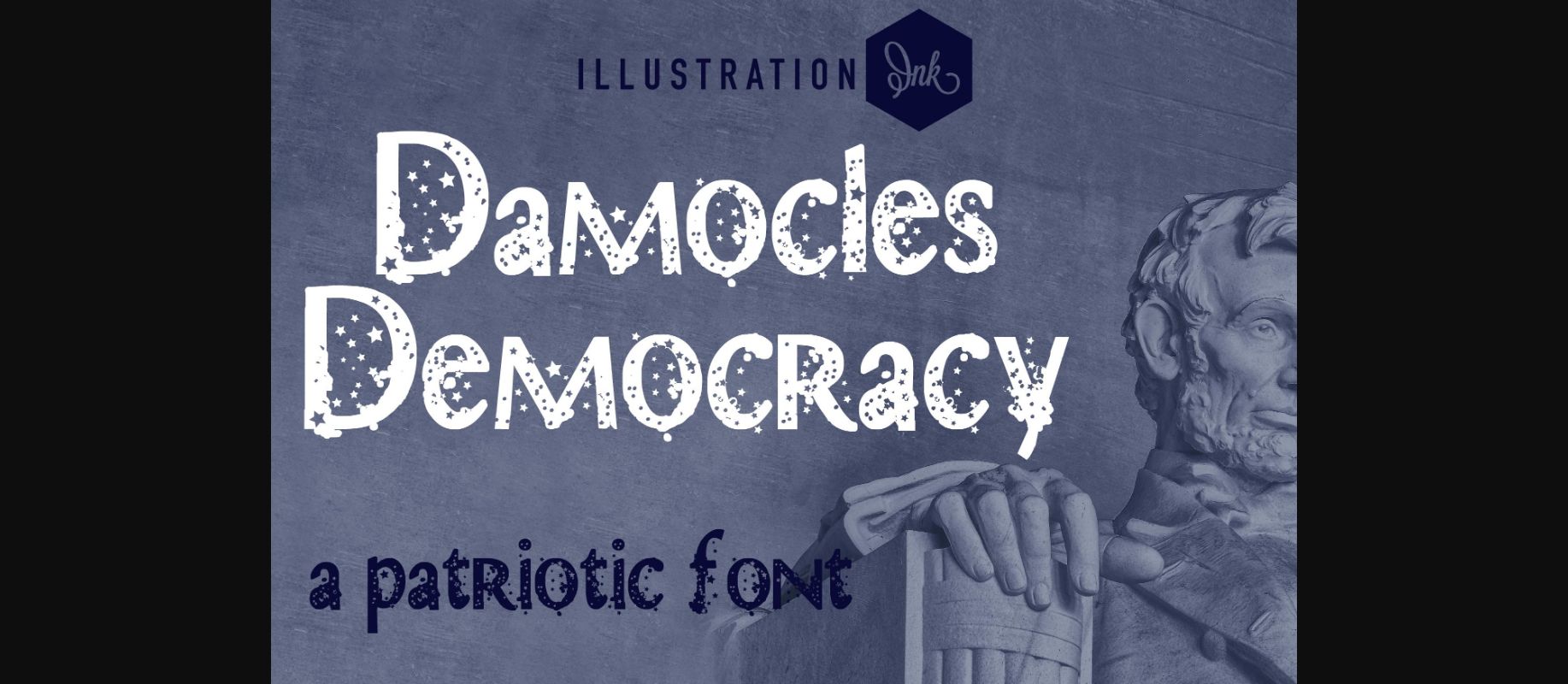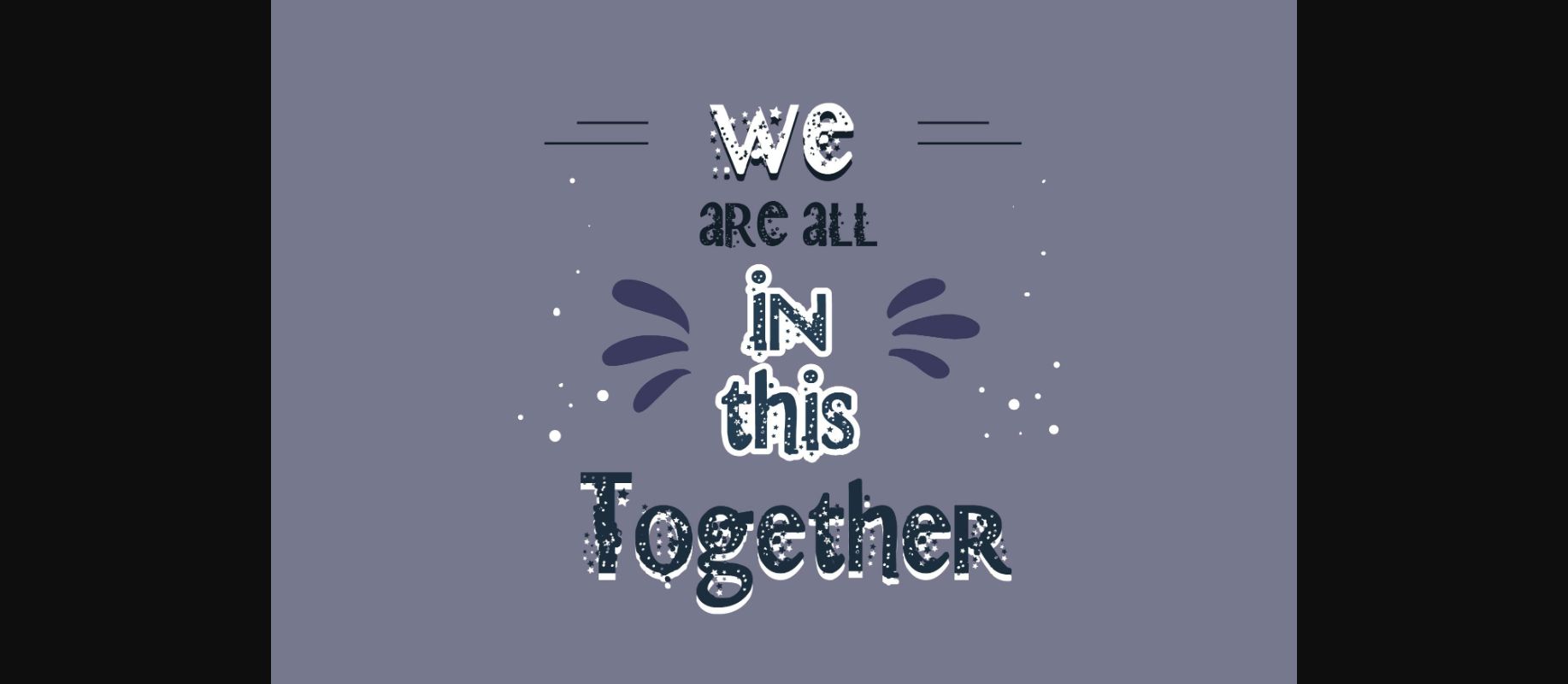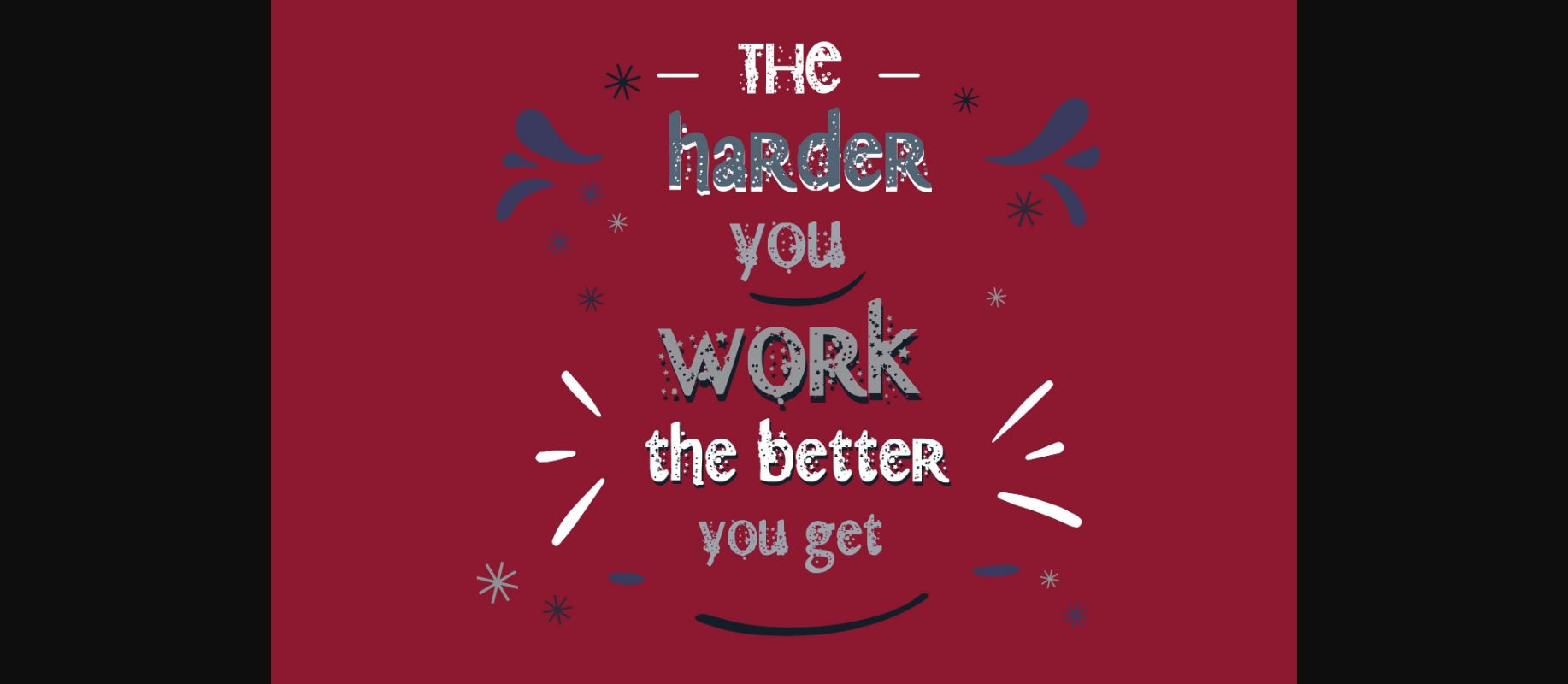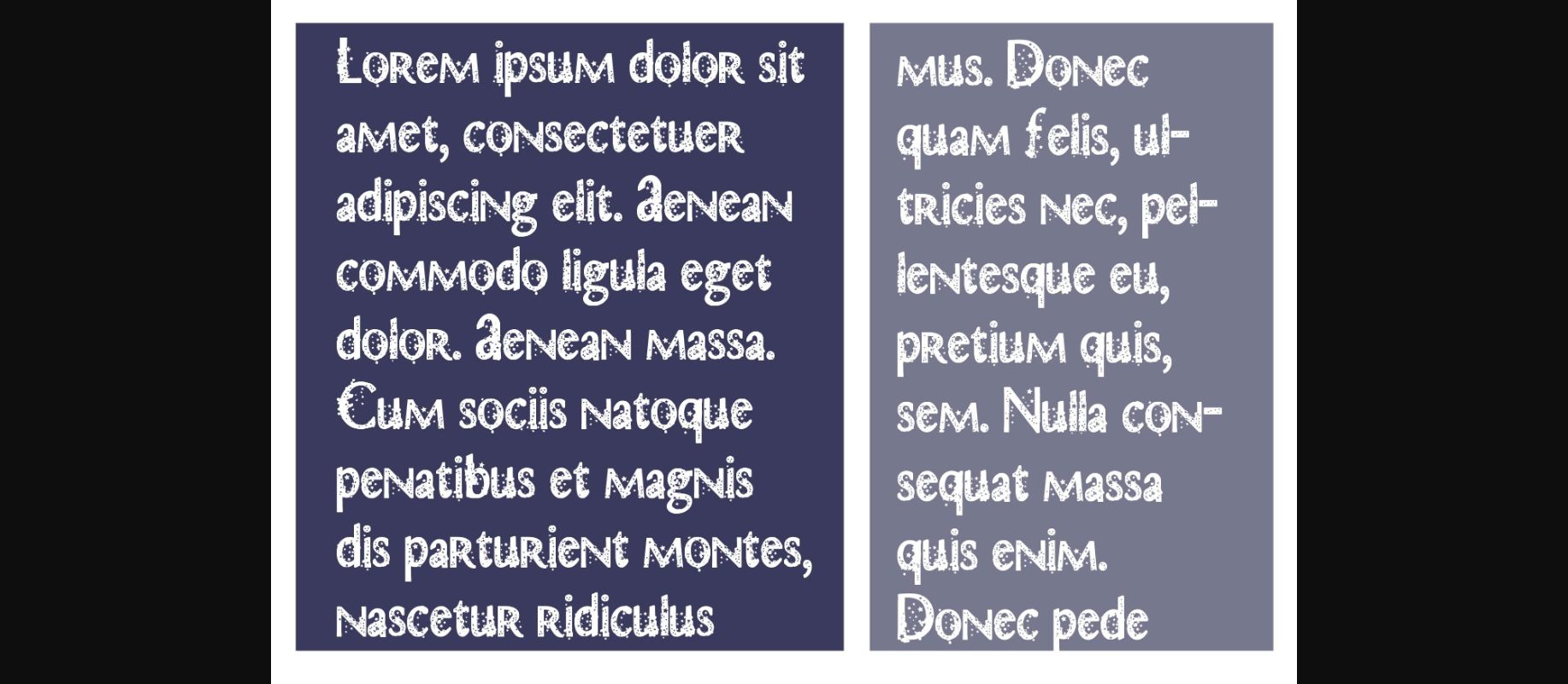
About Damocles Democracy Font
Each letter is beautifully crafted, with stars delicately incorporated to evoke a sense of unity and freedom. Whether you’re designing invitations, banners, or posters for Independence Day, Veterans Day, or any American celebration, Damocles Democracy font will add a touch of patriotic flair to your projects, making them shine like the stars and stripes themselves.